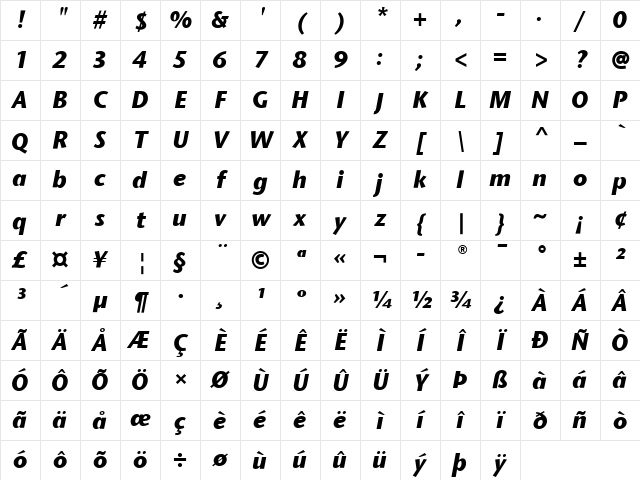
Complete Stone Sans ITC Medium Bold Italic glyph index. Displaying only characters natively supported by Stone Sans ITC Medium Bold Italic font.
Stone Sans ITC Medium is a composed and adaptable typeface that performs quietly and consistently across a wide range of design contexts. The slanted form adds forward momentum and visual energy. Its bold stroke weight gives it real presence on the page.
Pro Tip: Use Stone Sans ITC Medium for emphasis, pull quotes, and subheadings where its slanted energy can add rhythm to the layout.